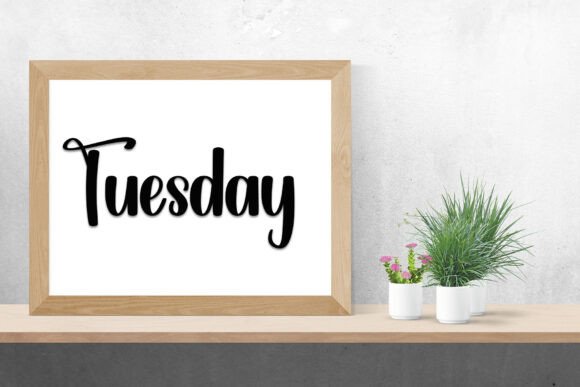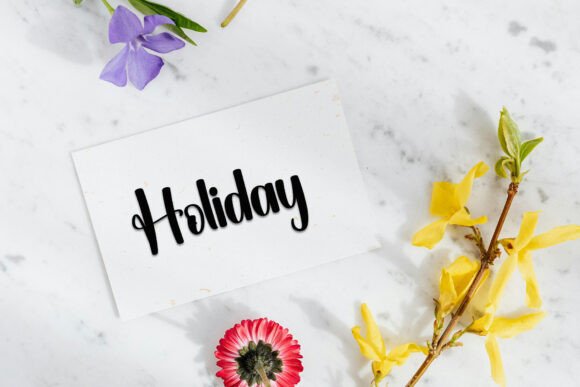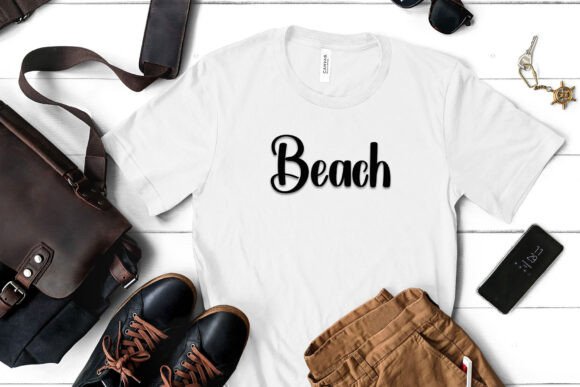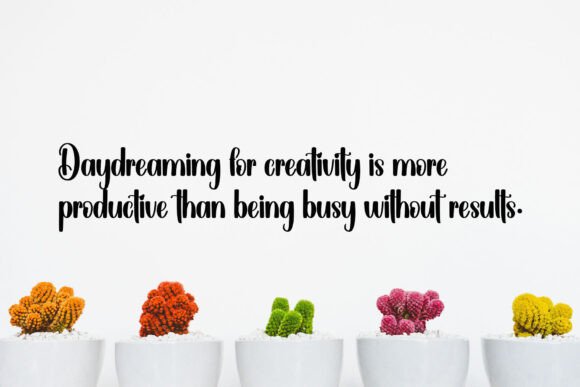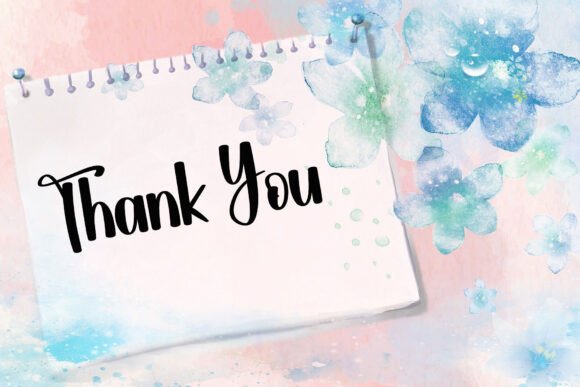
The Elegance of Handwritten Letters: Unveiling the Cupid Font
There’s something magical about the first time you put pen to paper, watching your thoughts and emotions flow onto the page in a beautiful, flowing script. As creatives, we’ve all experienced that moment when the perfect font comes together with our vision, elevating our design from ordinary to extraordinary.
That’s exactly what the Cupid Font aims to achieve – add a touch of timeless elegance and sophistication to your design projects. Inspired by classic calligraphy, this trendy handwritten font is designed to transport your audience to a world of refinement and poise. With its impeccable form and contemporary atmosphere, the Cupid Font is a valuable asset for designers seeking to create truly memorable designs.
Cupid Font Key Features
- Font Style: Handwritten, Script, and Calligraphy
- Character Set: Supports Latin, Cyrillic, and Greek alphabets
- Unique Characteristics: Includes ligatures, swashes, and flourishes to create a romantic and elegant look
Cupid Font Review
As a designer, I was excited to dive into the Cupid Font and see what it had to offer. Overall, I’d say it’s a solid choice for those looking for a playful, whimsical feel.
- Unique aesthetic: Cupid Font has a distinctive look that’s perfect for designs that need a touch of romance or playfulness.
- Good for body text: The font is clear and readable, making it suitable for use in paragraphs and longer blocks of text.
- Customization options: Cupid Font offers a range of weights and styles, giving you flexibility in your design.
- Limited versatility: While Cupid Font is great for certain projects, it may not be the best choice for more formal or serious designs.
- May not be suitable for small text: The font’s unique design can make it difficult to read in smaller sizes.
Cupid Font is a fun and engaging choice for designers looking to add a playful touch to their work. While it may have some limitations, it’s a solid option for the right projects. If you’re looking for a font that’s perfect for Valentine’s Day cards, wedding invitations, or other romantic designs, Cupid Font is definitely worth considering.
Tips for Getting the Most Out of Cupid Font
To get the most out of the Cupid Font, use it for romantic and whimsical designs, such as:
- Valentine’s Day cards and gifts
- Love-themed posters and prints
The Cupid Font is perfect for designs that require a playful and charming touch, such as:
- Love letters and poems
- Anniversary and birthday cards
- Wedding and engagement announcements
Alternatives to Cupid Font for Designers
Pacifico is a beautiful, elegant script font ideal for creating a romantic and sophisticated atmosphere. It is perfect for wedding invitations, greeting cards, and other special occasion designs. Compared to Cupid Font, Pacifico has a more refined and luxurious feel, making it suitable for high-end projects.
Great Vibes is a modern, handwritten font that exudes a carefree and playful vibe. It is ideal for designing posters, social media graphics, and other promotional materials that require a fun and energetic tone. Compared to Cupid Font, Great Vibes has a more casual and relaxed feel, making it perfect for projects that need to convey a laid-back attitude.
Alex Brush is a beautiful, handwritten font with a unique and artistic flair. It is perfect for designing invitations, menus, and other materials that require a touch of elegance and sophistication. Compared to Cupid Font, Alex Brush has a more distinctive and artistic feel, making it suitable for projects that need to stand out from the crowd.